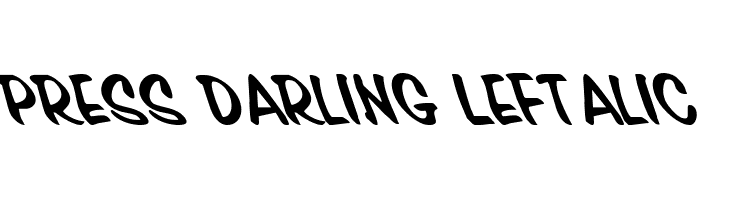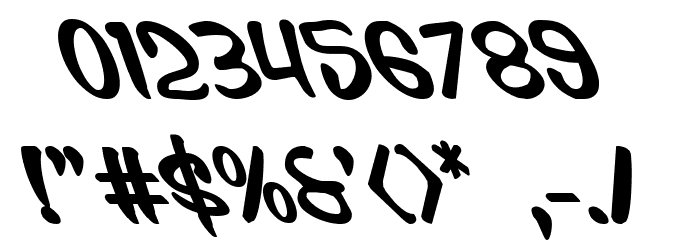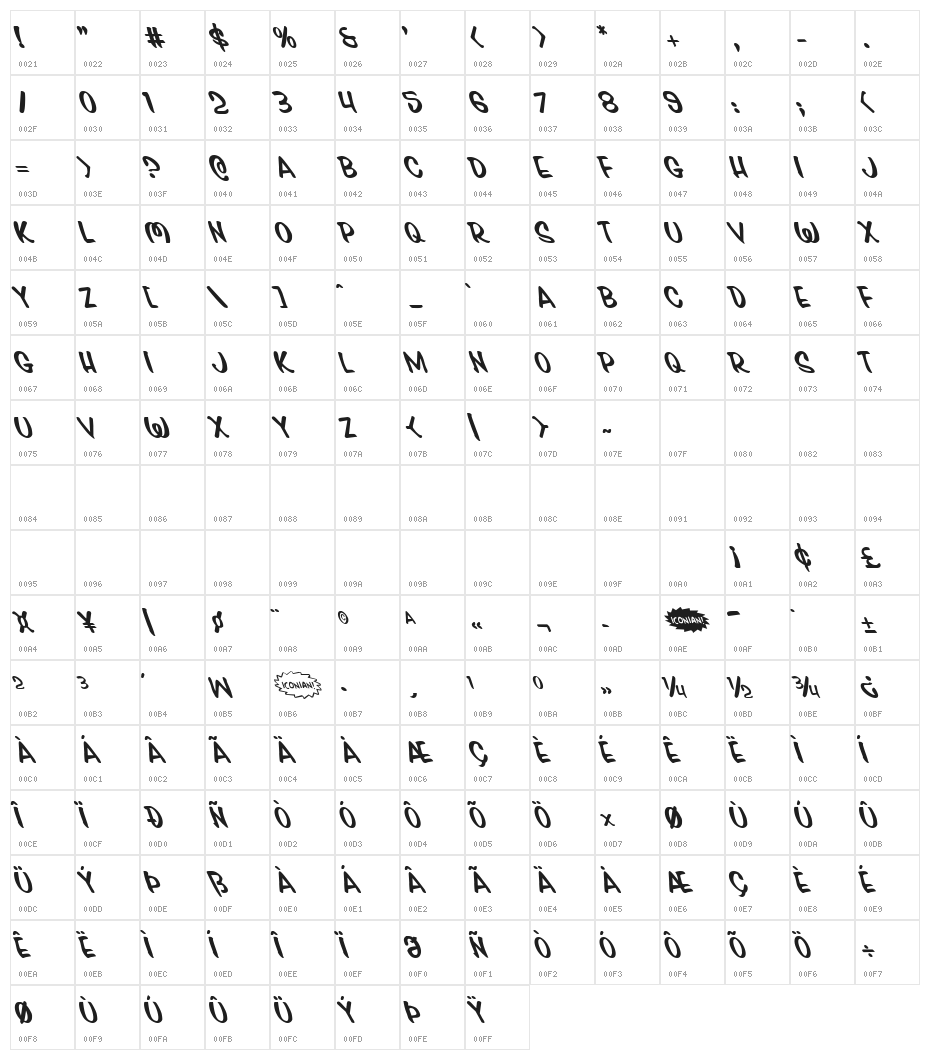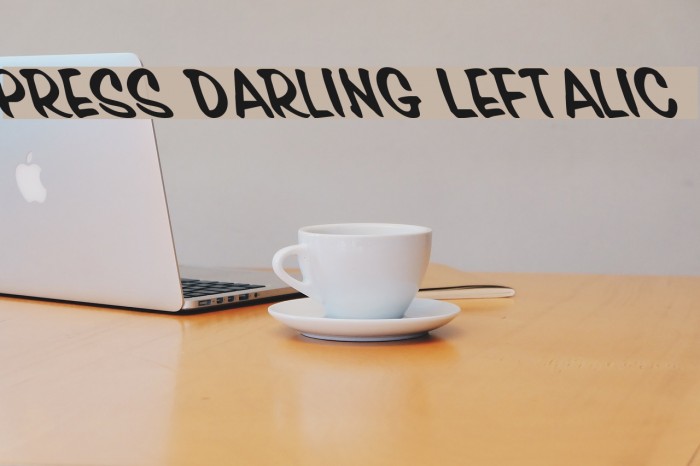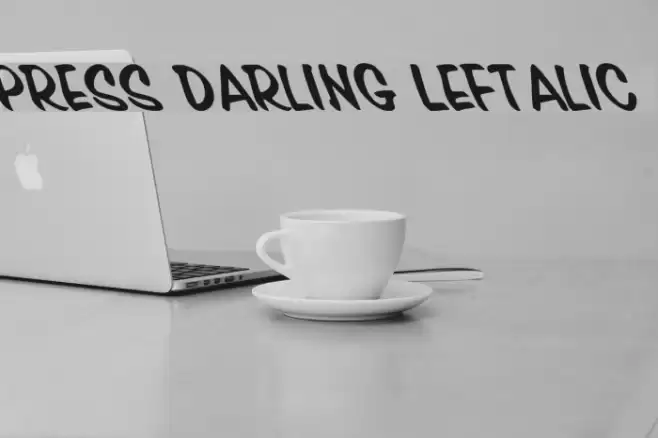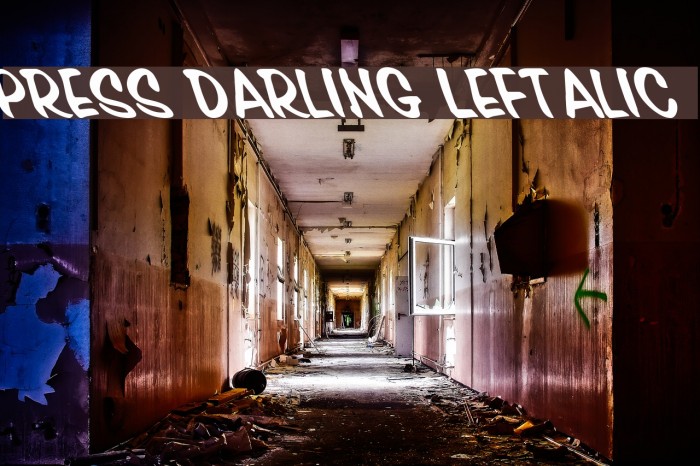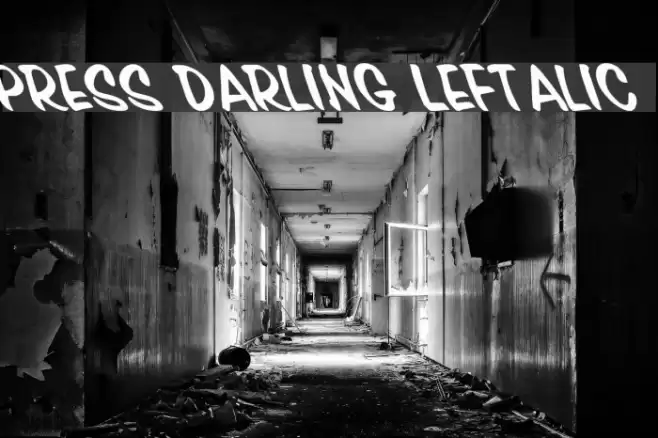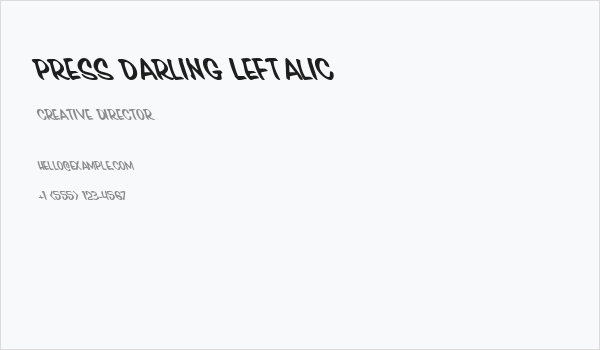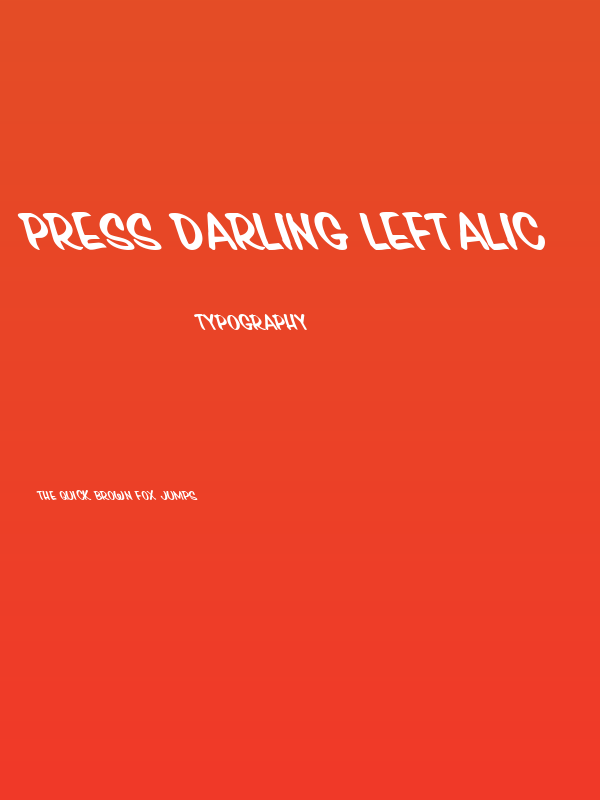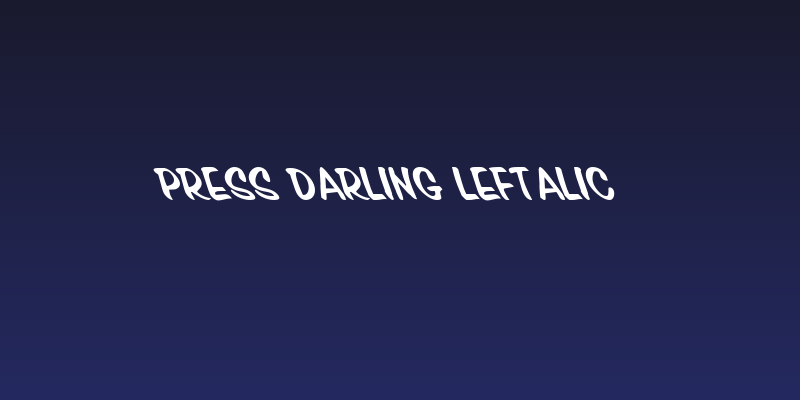
Press Darling Leftalic Font
Press Darling Leftalic Description
This font features a bold and playful style with a distinct leftward slant, giving it a dynamic and energetic appearance. The characters are thick and rounded, with a hand-drawn feel that adds a touch of whimsy. The uppercase and lowercase letters maintain a consistent style, with exaggerated curves and a slightly uneven baseline, enhancing its informal and casual look. Numbers and special characters follow the same playful design, making them easily recognizable and cohesive with the overall font style. The font's unique personality makes it stand out, perfect for projects that require a fun and engaging typeface.